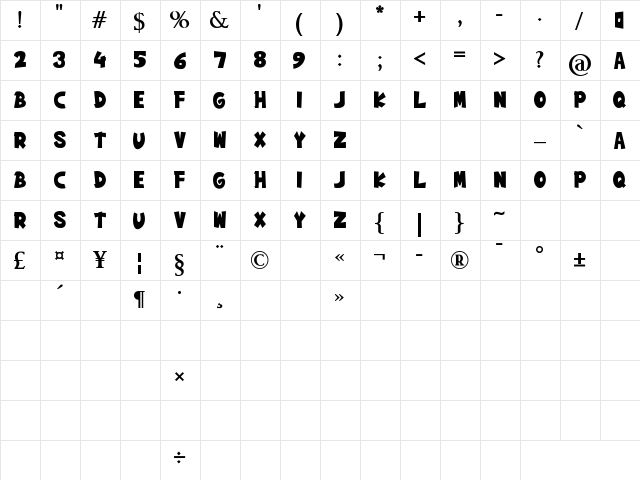
Boebloe Bold
Design Context for Boebloe Typeface
Boebloe is a composed and adaptable typeface that performs quietly and consistently across a wide range of design contexts. The heavy weight commands attention and anchors typographic hierarchies.